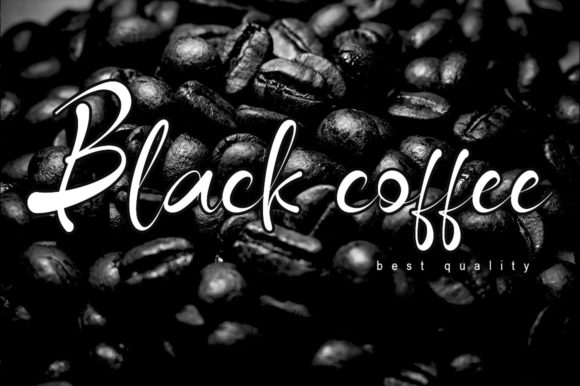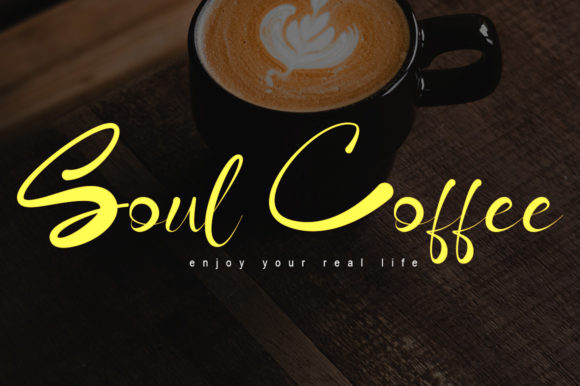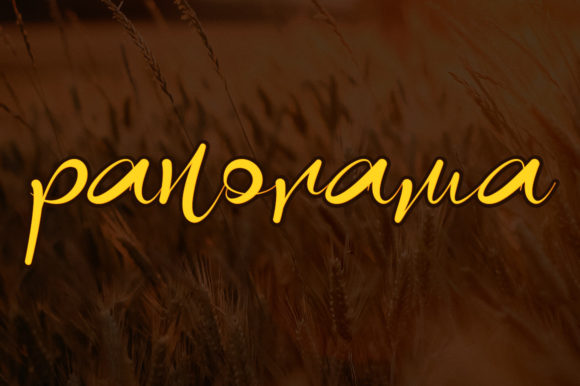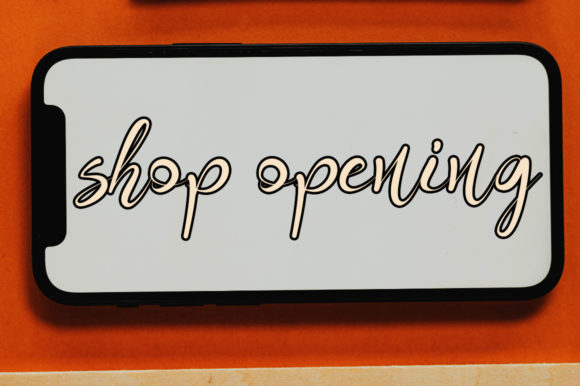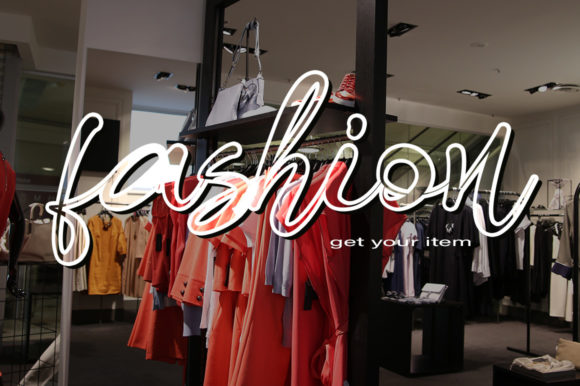
Introducing Grass Graffiti Font: Elevate Your Designs with a Chic Handwritten Style
In the world of design, fonts play a crucial role in conveying messages, expressing creativity, and capturing the audience’s attention. For designers and crafters looking for a unique and stylish handwritten font, Grass Graffiti is an excellent choice. This chic font is perfect for various design projects, including packaging products, invitations, brochures, event posters, shirt screen printing, book covers, and more.
What is Grass Graffiti Font?
Grass Graffiti Font is a beautifully crafted handwritten font that exudes elegance and sophistication. Its unique style is characterized by flowing lines, subtle imperfections, and a touch of playfulness, making it perfect for designs that require a personal and creative touch. The font’s versatility allows it to be used in various contexts, from formal to informal, and its high-quality design ensures that it will look great in any application.
Key Features of Grass Graffiti Font
- Handwritten style: Grass Graffiti Font boasts a genuine handwritten look that adds a personal touch to any design.
- Chic and elegant: The font’s sleek lines and subtle curves give it a sophisticated and stylish appearance.
- Versatile: Suitable for a wide range of design projects, from packaging and invitations to posters and book covers.
- High-quality design: Carefully crafted to ensure excellent readability and aesthetic appeal.
Use Cases for Grass Graffiti Font
Grass Graffiti Font is an excellent choice for various design projects, including:
- Packaging products: Add a touch of elegance to your product packaging with this beautiful font.
- Invitations: Create stunning invitations for weddings, parties, and other special events.
- Brochures and flyers: Use Grass Graffiti Font to add a creative and eye-catching element to your marketing materials.
- Event posters: Design attention-grabbing posters for concerts, festivals, and other events.
- Shirt screen printing: Create unique and stylish designs for t-shirts, hoodies, and other apparel.
- Book covers: Use Grass Graffiti Font to create captivating book covers that stand out.
Why Choose Grass Graffiti Font?
With so many fonts available, why choose Grass Graffiti Font? Here are a few reasons:
- Unique style: Grass Graffiti Font offers a distinctive and stylish look that sets it apart from other fonts.
- Ease of use: The font is easy to read and works well in various design contexts.
- High-quality design: The font is carefully crafted to ensure excellent readability and aesthetic appeal.
- Versatility: Suitable for a wide range of design projects, from formal to informal.
Tips for Using Grass Graffiti Font
To get the most out of Grass Graffiti Font, follow these tips:
- Use it sparingly: Use the font to highlight important information or to add a creative touch to your design.
- Pair it with other fonts: Combine Grass Graffiti Font with other fonts to create a unique and visually appealing design.
- Experiment with colors: Try out different colors to find the perfect match for your design.
In conclusion, Grass Graffiti Font is an excellent choice for designers and crafters looking for a chic and elegant handwritten font. Its versatility, high-quality design, and unique style make it perfect for various design projects. With its ease of use and flexibility, Grass Graffiti Font is sure to elevate your designs and help you stand out from the crowd.